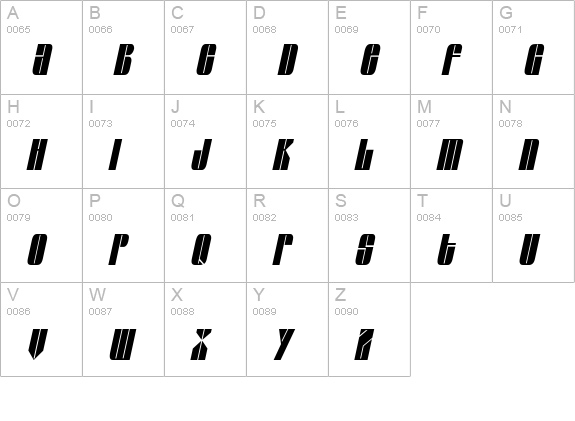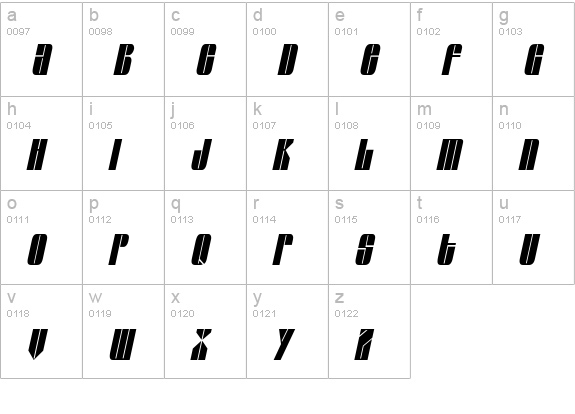
Glaze Extended Condensed Italic is a distinctive, condensed-width, italic variant in the Glaze typeface family \xE2\x80\x94 well suited to design and typography projects.
Glaze Extended Condensed Italic font is a sleek and modern typeface that exudes elegance and sophistication. Its italic style adds a touch of flair and creativity to any design project, making it perfect for use in branding, advertising, and editorial layouts. This font features tall and narrow letterforms with subtle curves, giving it a contemporary and refined look. The condensed spacing allows for efficient use of space while maintaining readability. The soft, subtle glaze effect adds a touch of warmth and personality to the overall design. Best of all, Glaze Extended Condensed Italic font is available for free download at FontsMarket.com. This means you can easily access this stylish typeface for your projects without any cost. Don't miss out on the opportunity to enhance your designs with this beautiful and versatile font. Download Glaze Extended Condensed Italic today and elevate your creations to the next level!